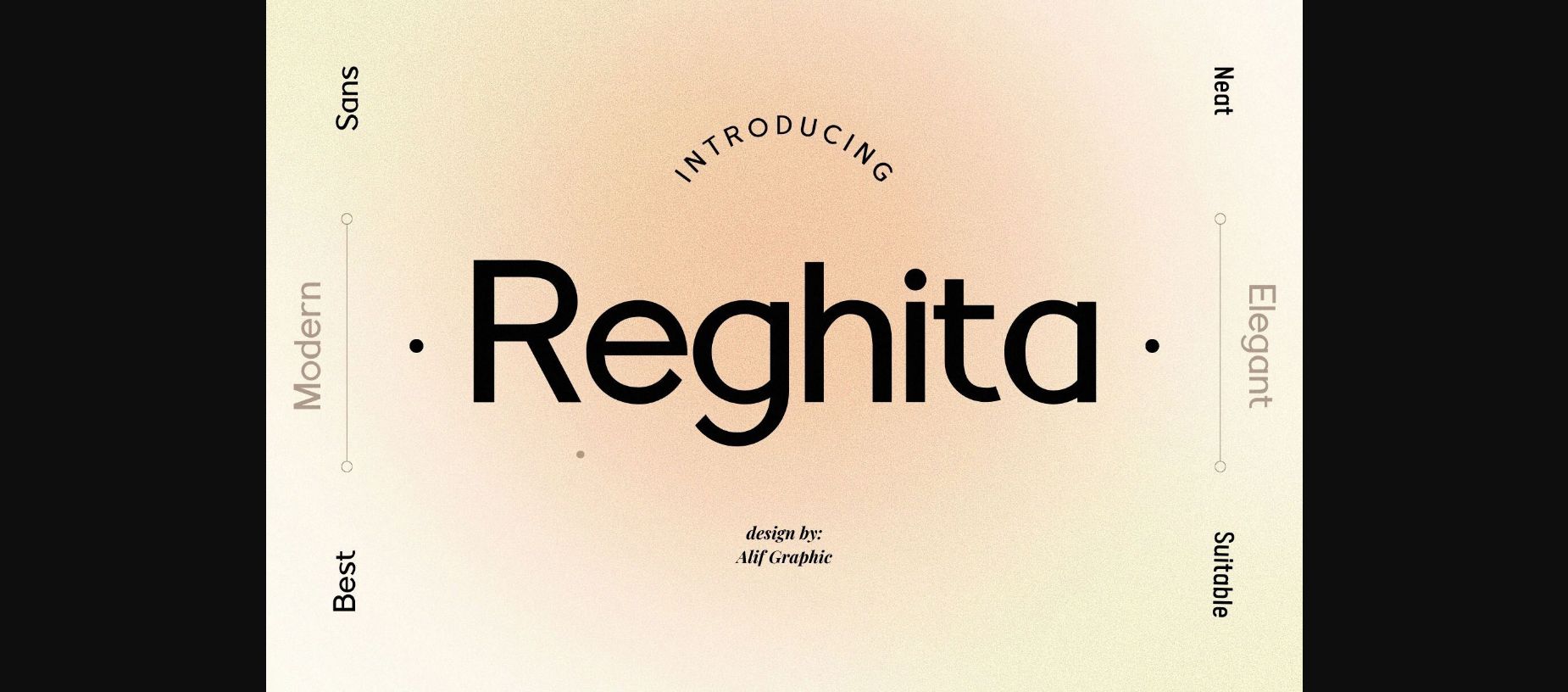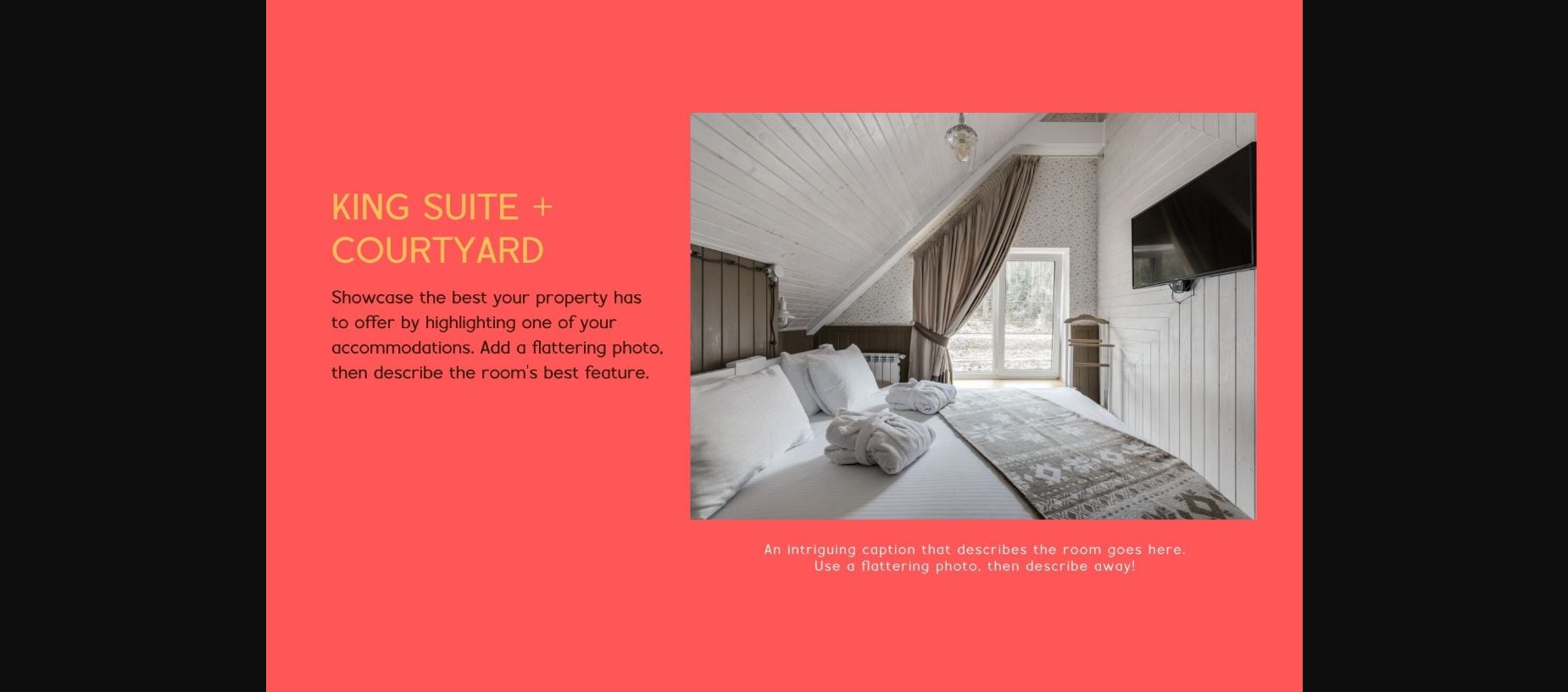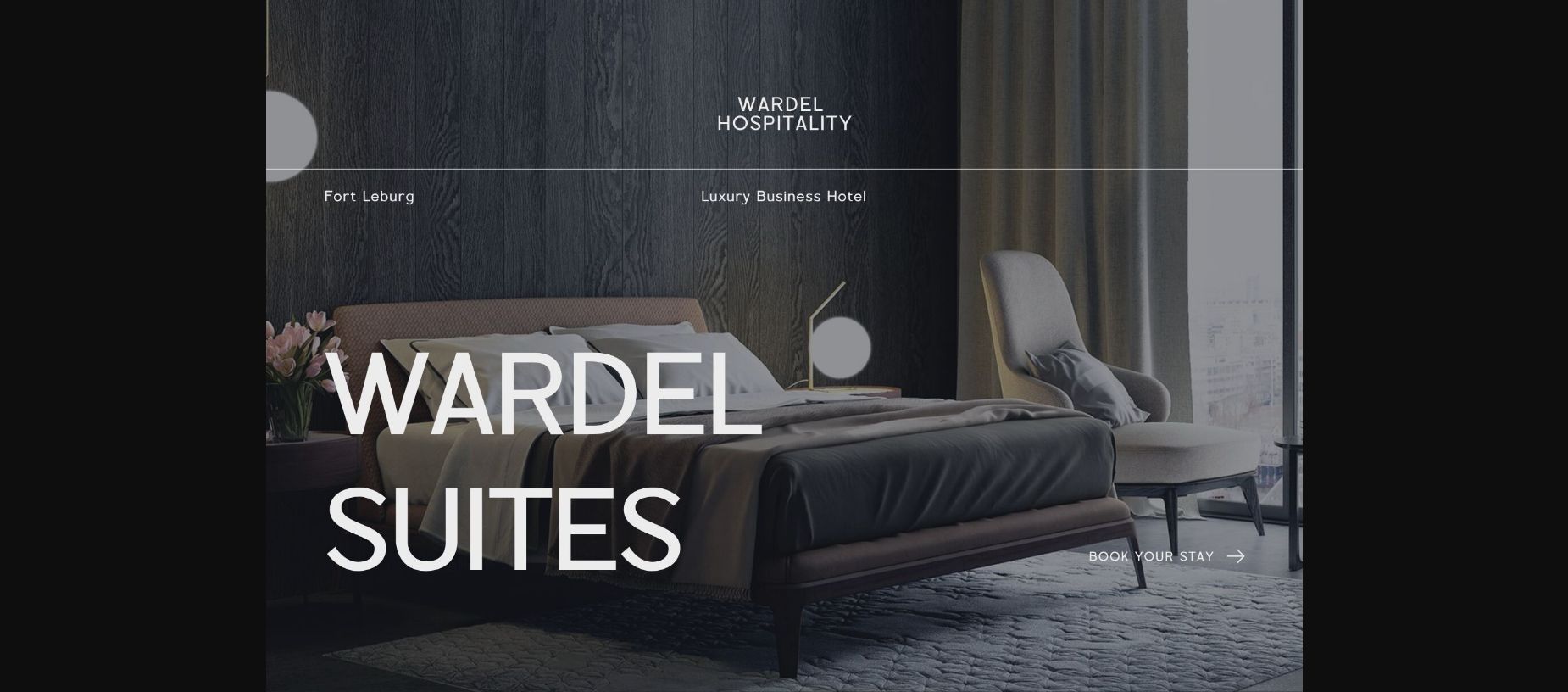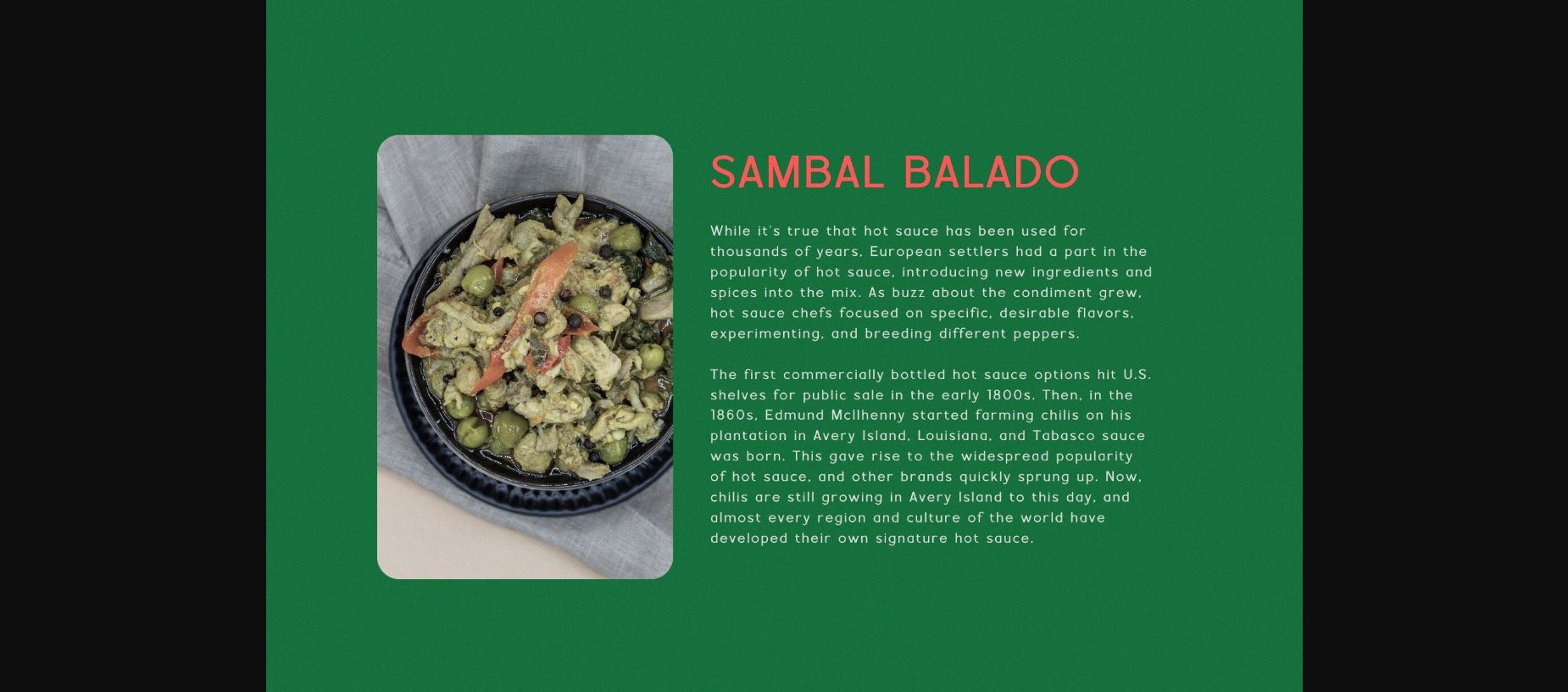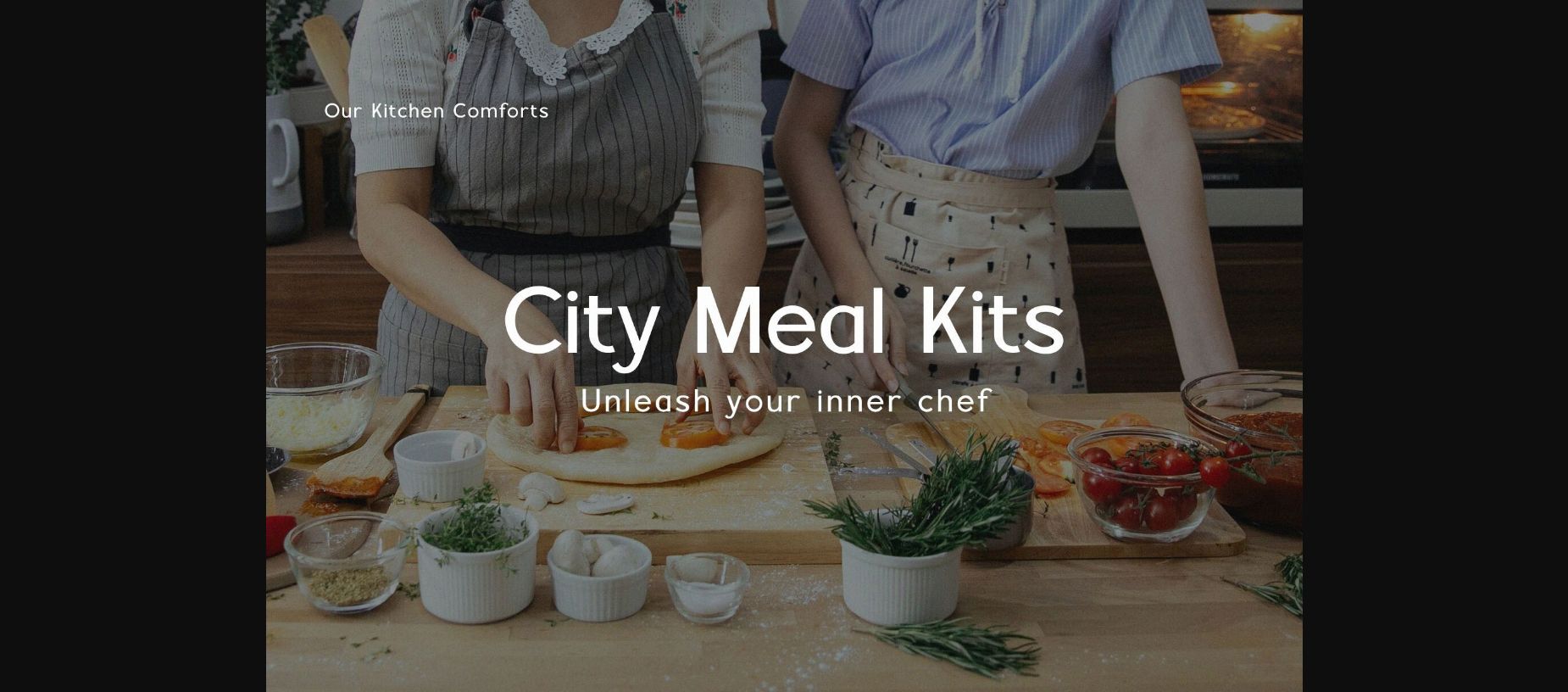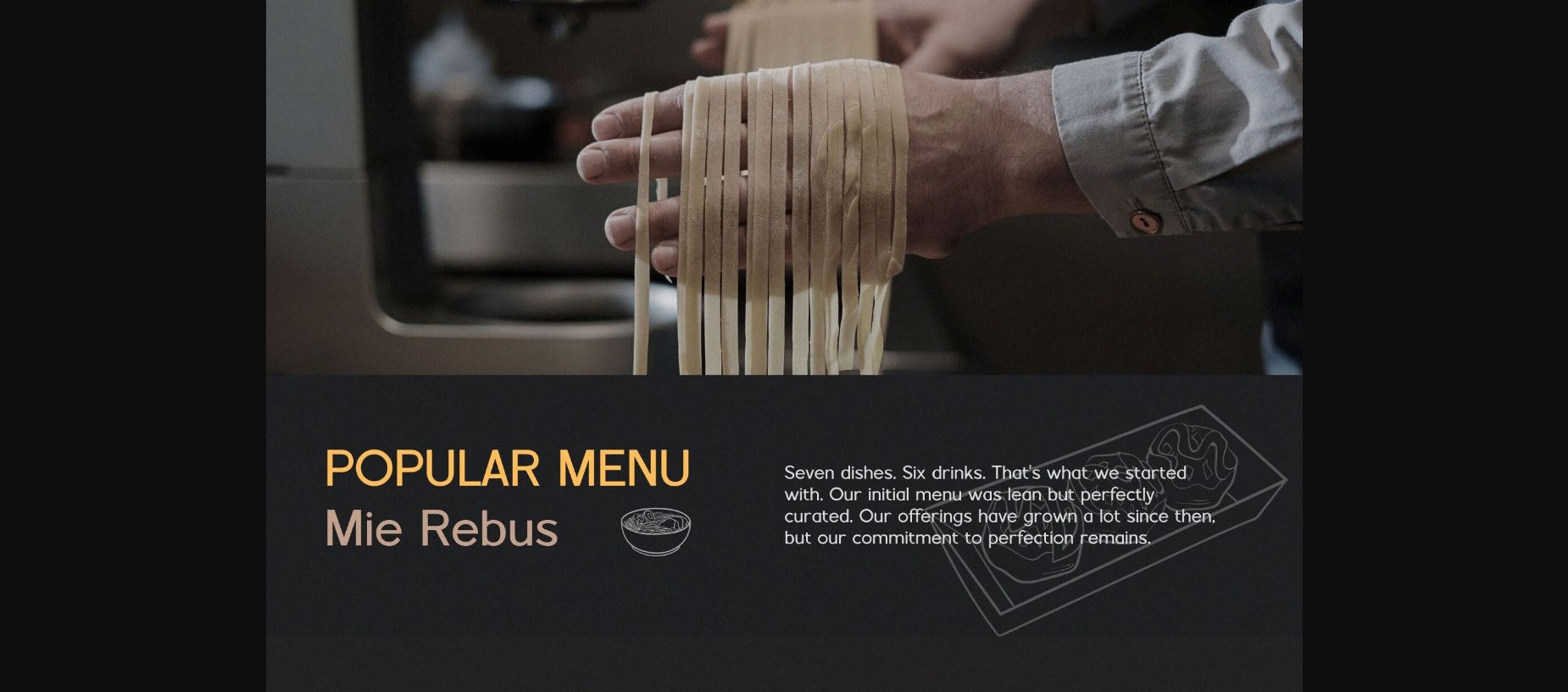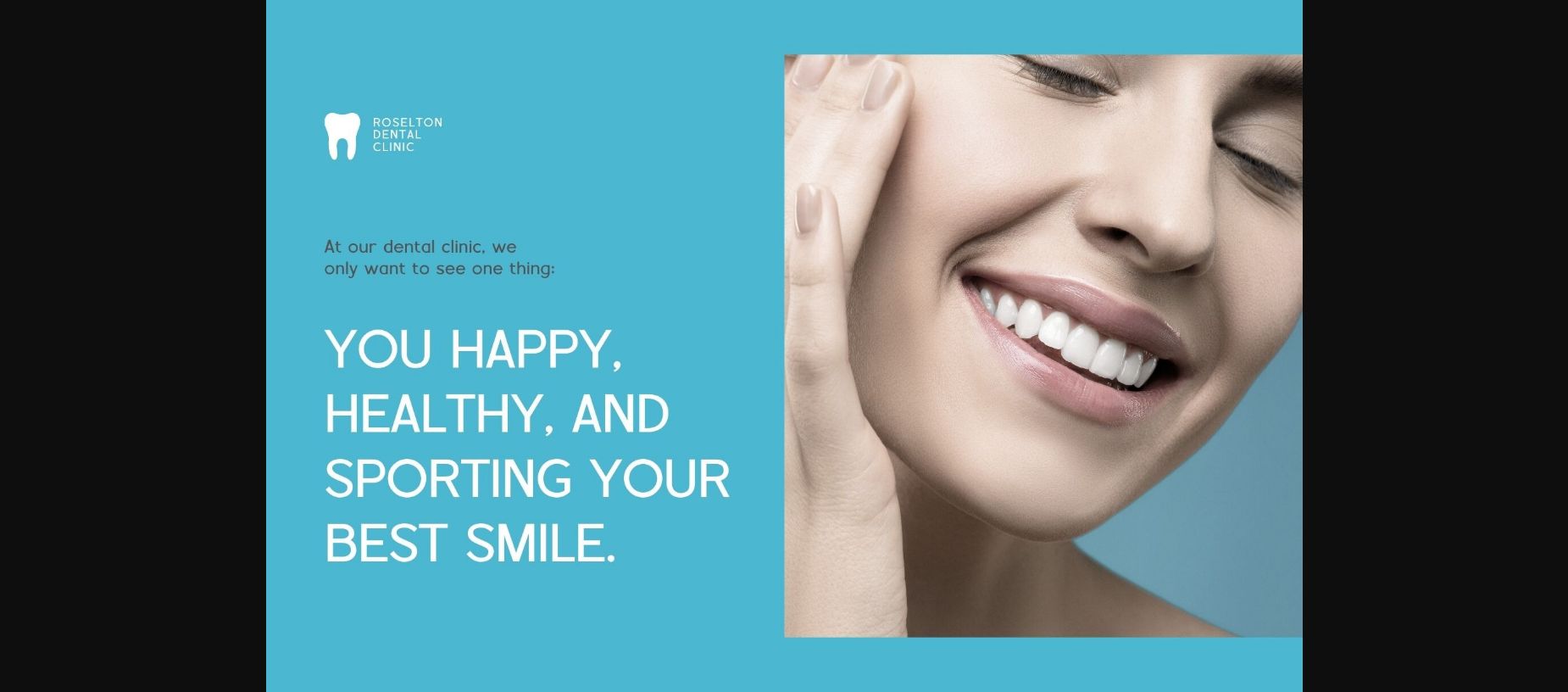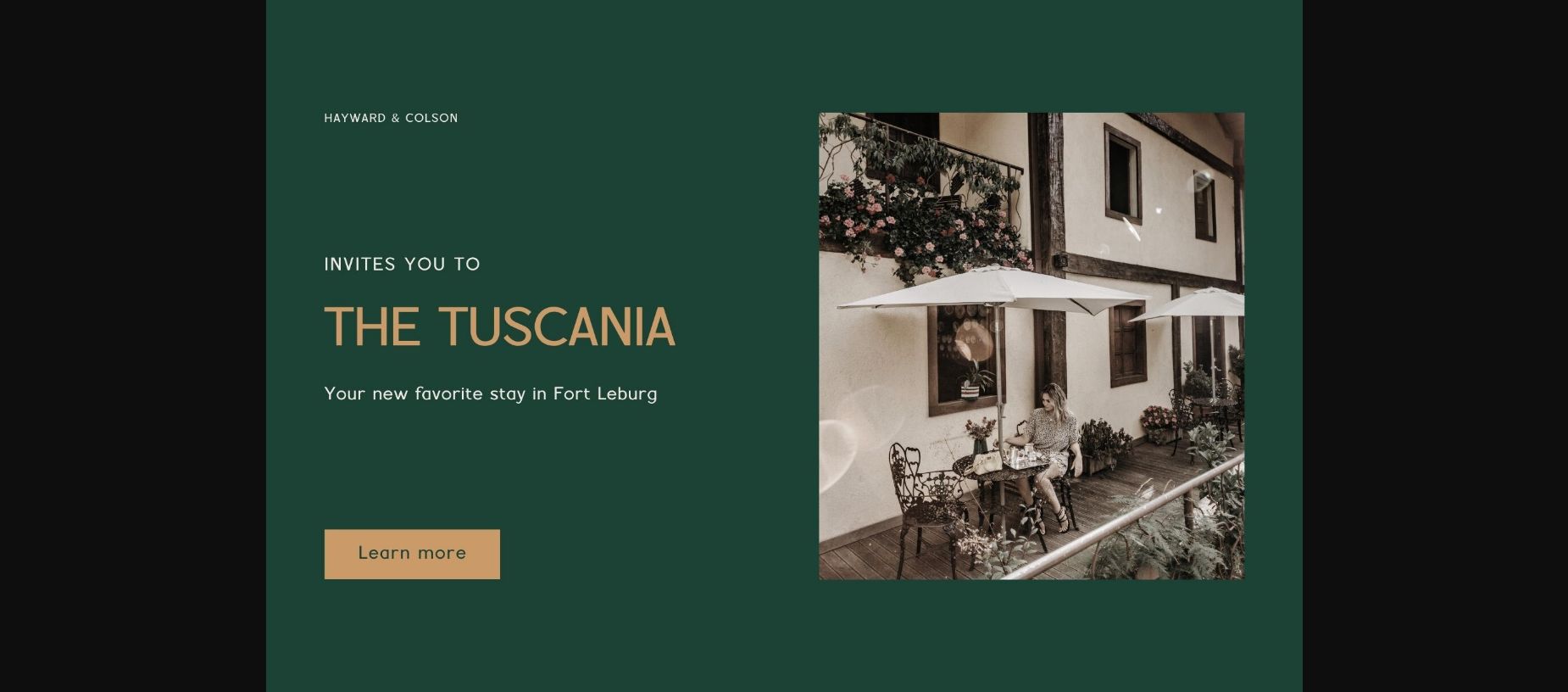
Reghita Font
About Reghita Font
A beautiful series of letters is encapsulated in this ‘Reghita’ font.
Neat lettering is perfect for writing needs that are modern and pleasing to the eye, there is a Modern impression but still looks Elegant when used for writing.
Tidiness in the manufacture of each letter, is our top priority.